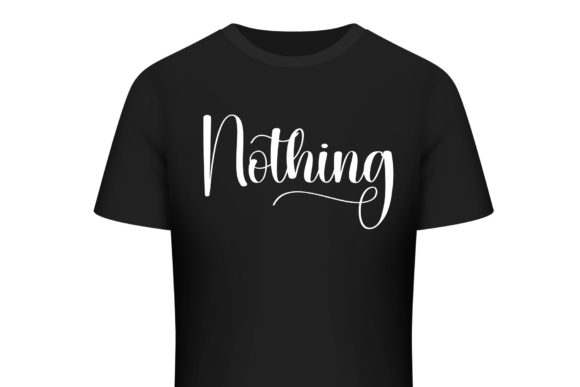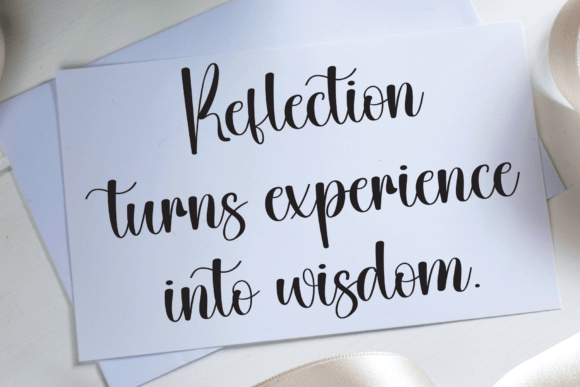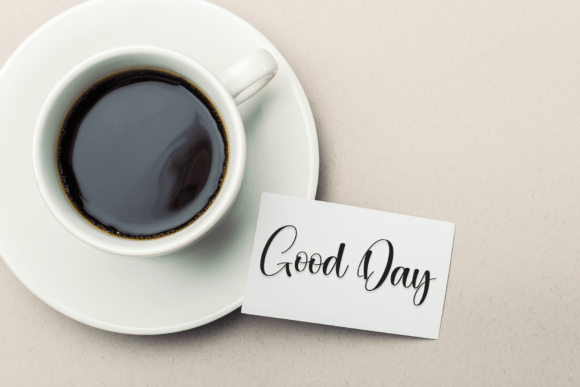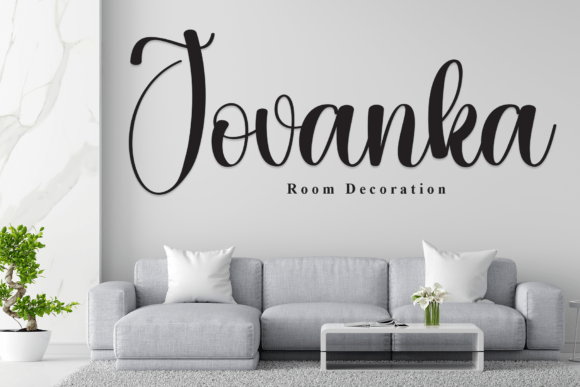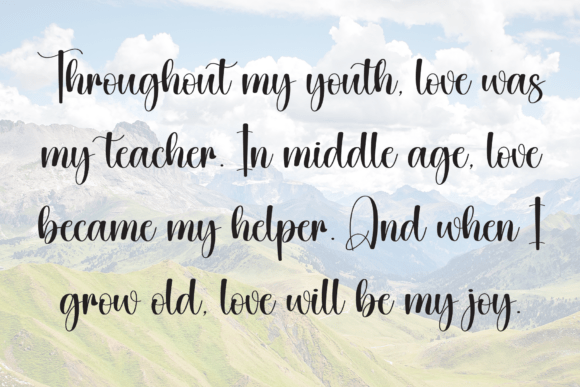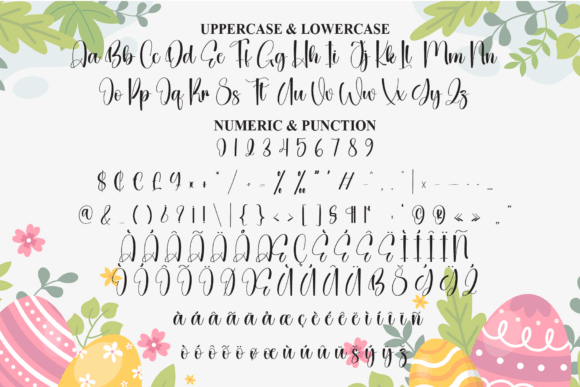
Easterday Font: Elevate Your Designs with a Touch of Elegance
Are you a designer, crafter, or DIY enthusiast looking for a unique and creative way to add a personal touch to your projects? Look no further than the Easterday Font, a stunning and versatile typeface that is sure to take your designs to the next level. In this article, we’ll explore the features and benefits of the Easterday Font, and how it can help you create extraordinary experiences for yourself and your audience.
What is Easterday Font?
The Easterday Font is a beautifully crafted typeface that boasts a distinctive and elegant style, perfect for adding a touch of sophistication to any design project. Whether you’re working on a wall display, wedding invitation, social media post, logo, advertisement, product packaging, or label, this font is sure to make your project stand out from the crowd.
Key Features of Easterday Font
- Latest Style Letters: The Easterday Font features the latest style letters that are perfect for creating visually stunning designs that are sure to capture attention.
The Easterday Font is perfect for a wide range of design projects, including:
- Wall Displays: Create stunning wall displays that are sure to grab attention with the Easterday Font.
- Wedding Invitations: Add a touch of elegance and sophistication to your wedding invitations with this beautiful font.
- Social Media Posts: Elevate your social media posts with the Easterday Font, and make them stand out from the crowd.
- Logos: Create unique and memorable logos that reflect your brand’s personality with this versatile font.
- Advertisements: Use the Easterday Font to create eye-catching advertisements that grab attention and drive results.
- Product Packaging: Add a touch of luxury and sophistication to your product packaging with this stunning font.
- Labels: Create beautiful and informative labels that stand out from the competition with the Easterday Font.
- Photography: Use the Easterday Font to add a touch of elegance to your photography, and make your images stand out.
- Watermarks: Protect your images with a beautiful and unique watermark created with the Easterday Font.
- Invitations: Create stunning invitations for any occasion with this versatile font.
- Stationery: Elevate your stationery with the Easterday Font, and make it stand out from the crowd.
Why Choose Easterday Font?
So why choose the Easterday Font for your design projects? Here are just a few reasons:
- Unique and Creative: The Easterday Font is a unique and creative typeface that will add a touch of elegance and sophistication to any design project.
- Versatile: This font is perfect for a wide range of design projects, from wall displays to wedding invitations, social media posts, logos, and more.